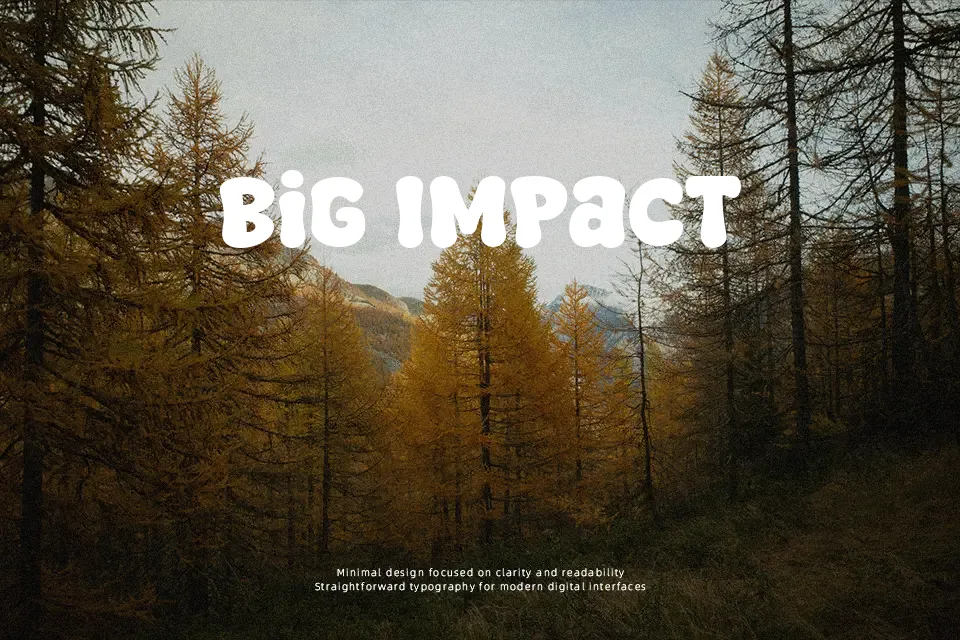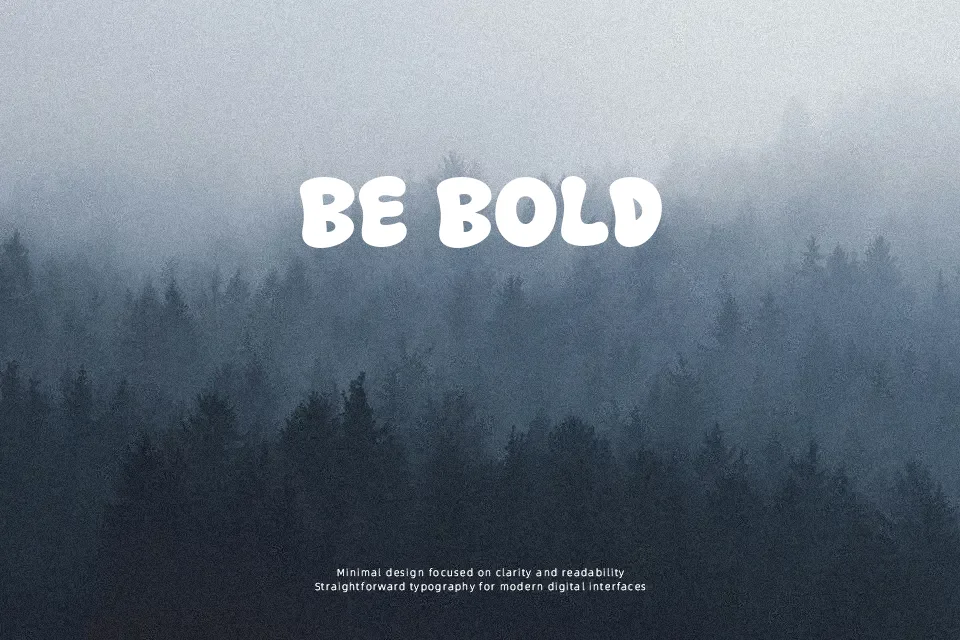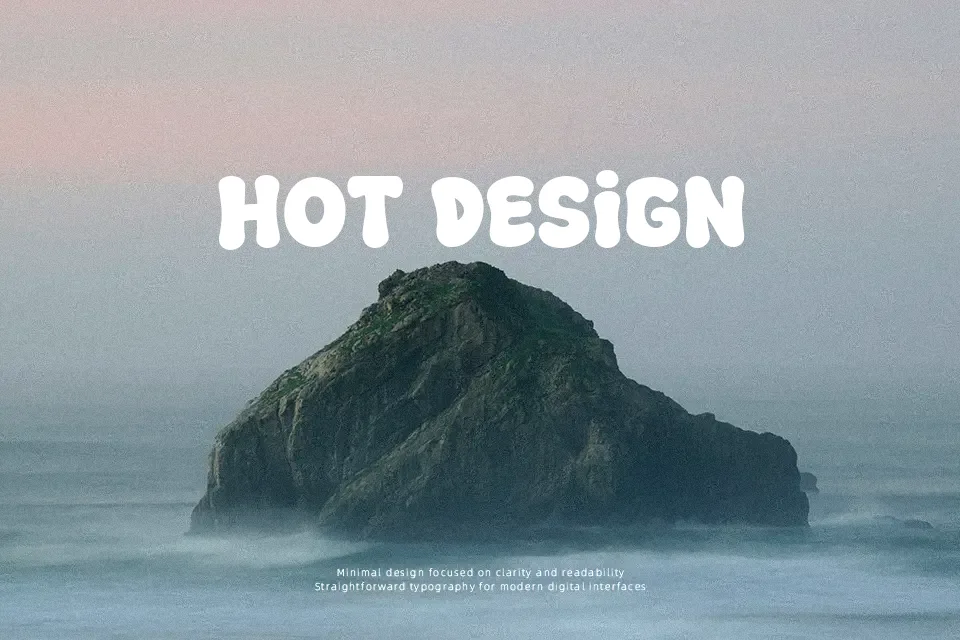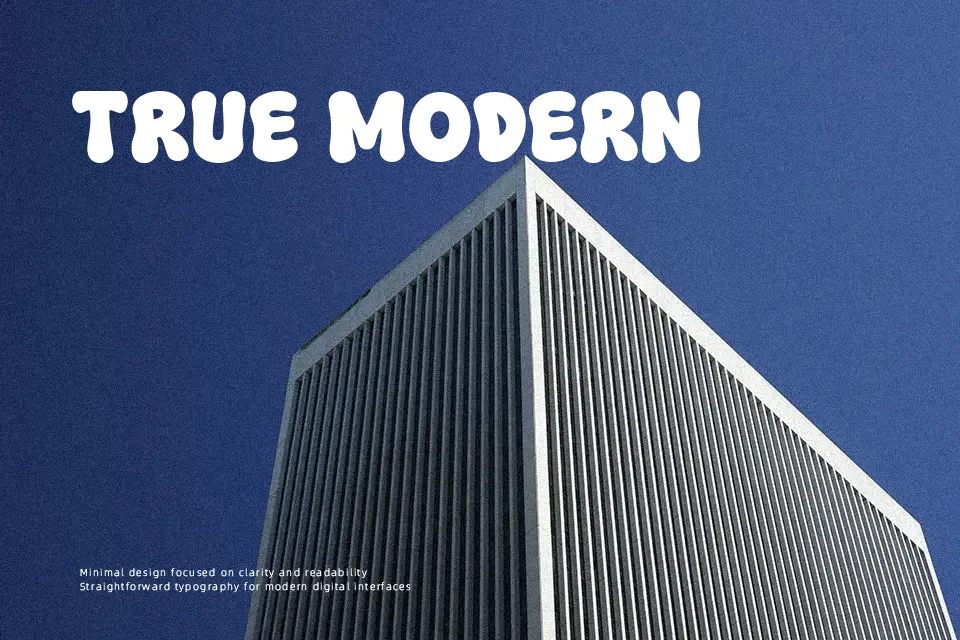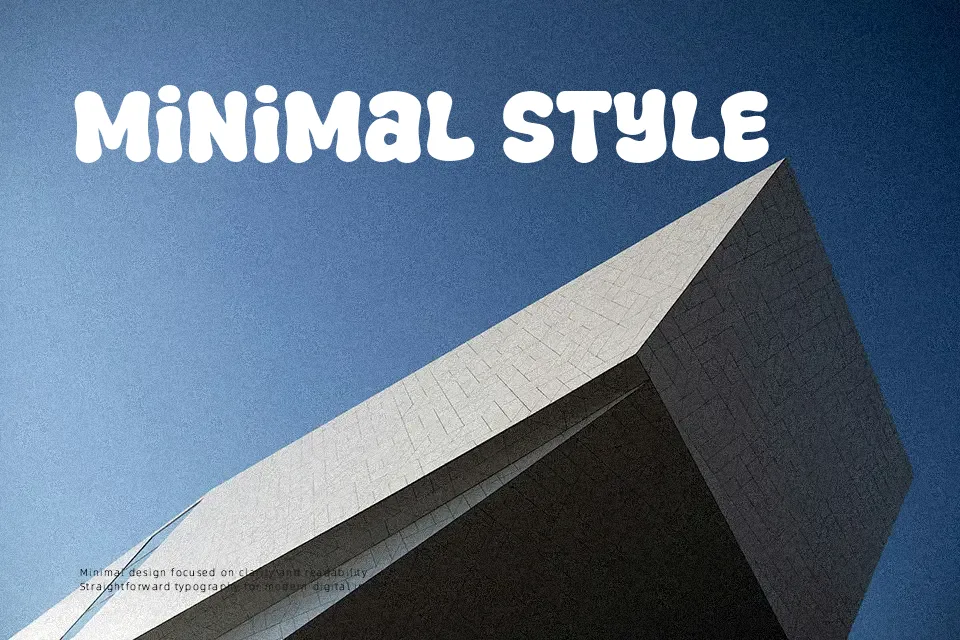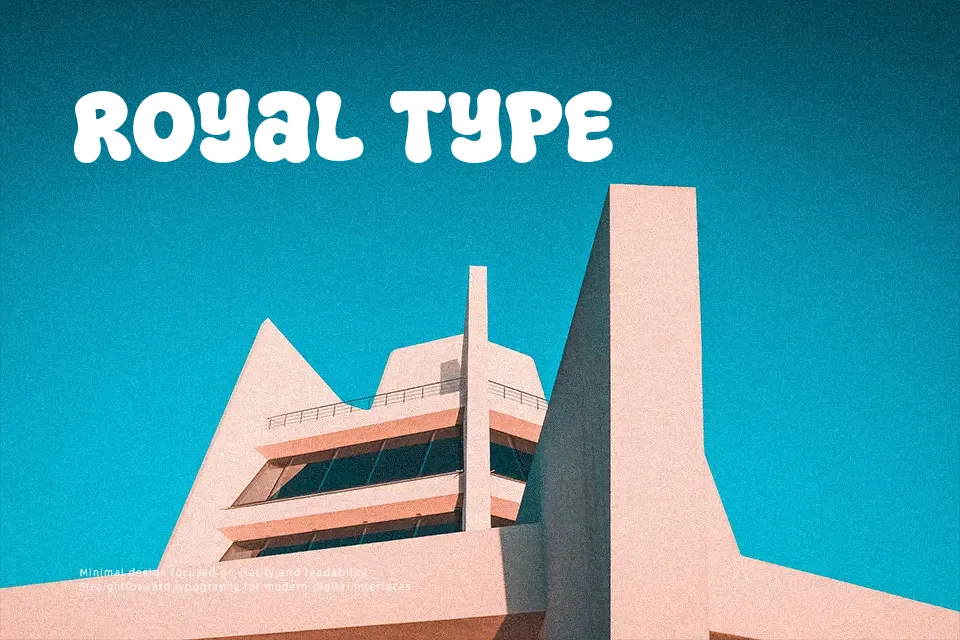
Super Vanilla Font
Super Vanilla Font uses thick, rounded letterforms with smooth curves, inflated proportions, and a deliberately playful display presence. The strokes appear broadly even, while the generous, open shapes keep short words recognizable at headline sizes. Uppercase and lowercase characters share a soft, cartoon-like rhythm, giving titles and packaging a casual, friendly tone. It works especially well for children’s graphics, snack labels, event posters, and bold social posts where the lettering needs to be part of the visual message. The spacing helps preserve clarity in large text, but the heavy, decorative forms are less comfortable in compact captions or extended reading.
Best For: kids’ event posters,snack packaging,playful logo designs,social media headlines
Perfect for headline, logo, and packaging, with a bold and cartoon style.